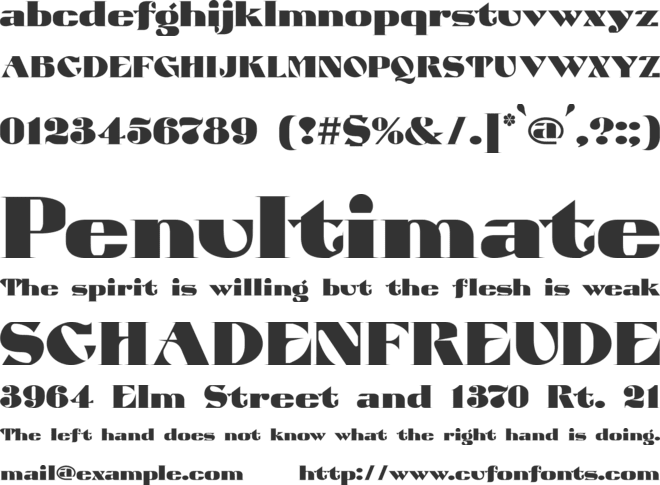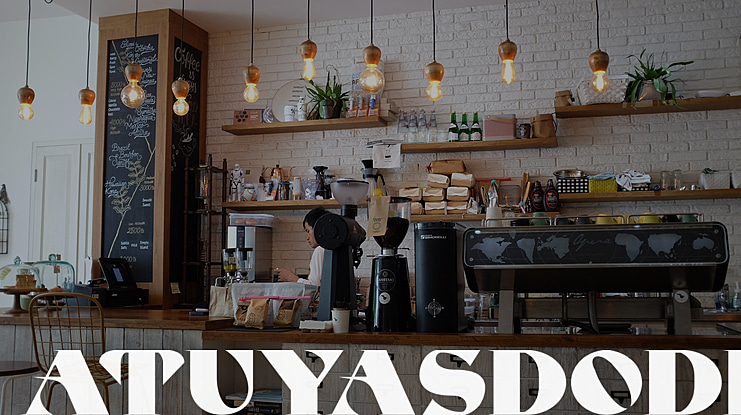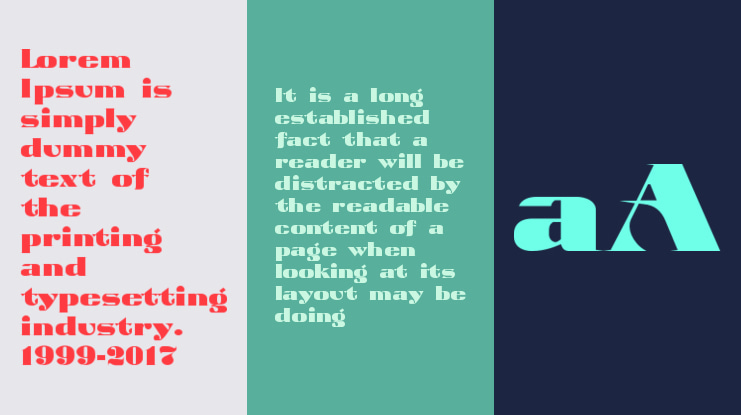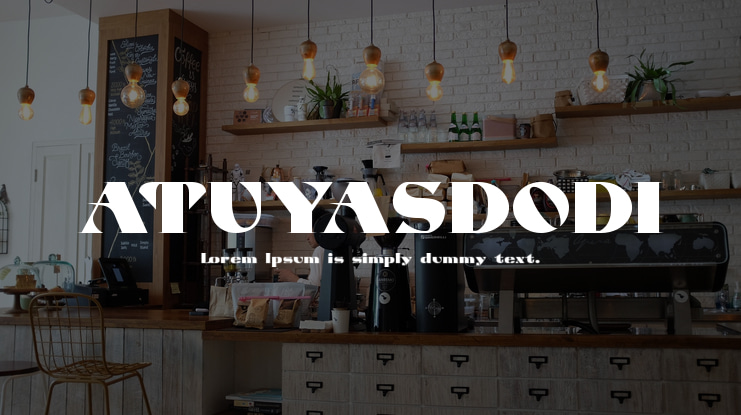
ATUYASDODI Font
This is a Cherokee Unicode typeface. ATUYASDODI translate into Cherokee means promise. The Cherokee land in Georgia was auction off by Americans. This font was base on the documents of the 10 dollars an acre auction ad for their home.